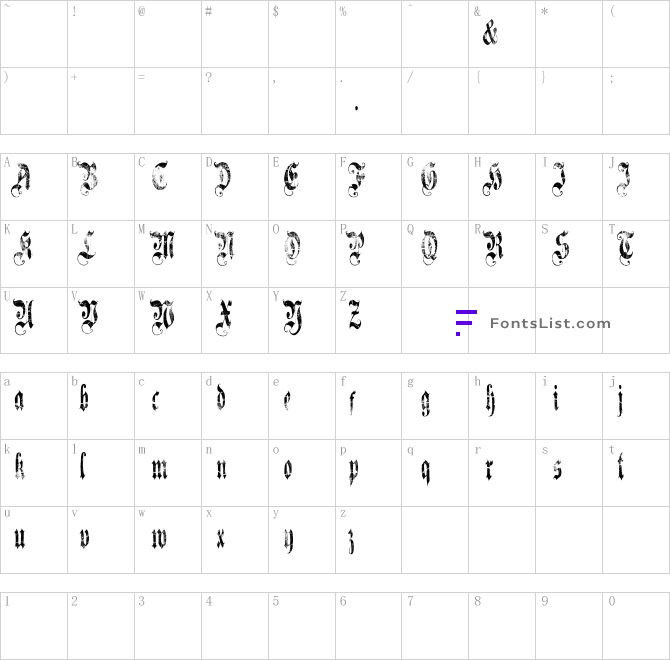
- Font Name:A Gothique Time
- Subfamily:FieClarke'Dead-Duckling': A Gothique Time : 2012
A-Gothique-Time-copy-2-.ttf is a very beautiful artistic font, A-Gothique-Time-copy-2-.ttf is widely used in the design and printing of various books and pictures,A-Gothique-Time-copy-2-.ttf has a strong visual impact,A-Gothique-Time-copy-2-.ttf is a commonly used font in newspapers, magazines and books, and is used in posters, e-commerce Poster design, store design, logo design, font design and other fields.A-Gothique-Time-copy-2-.